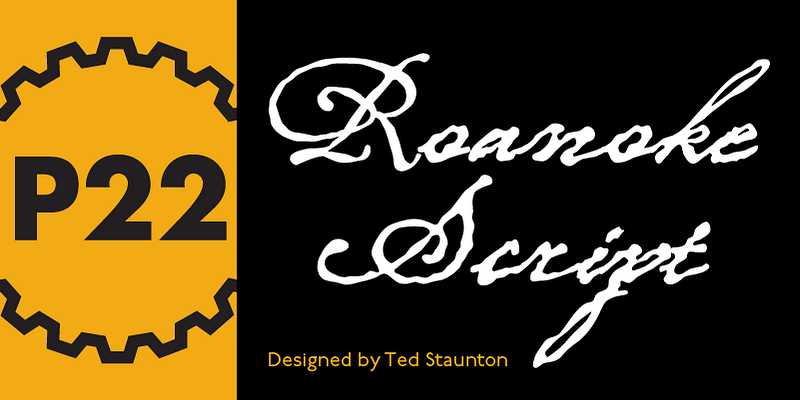
P22 Roanoke Script Font Free Download is a sophisticated and flowing script typeface that exudes elegance and charm. With its smooth curves and beautifully crafted strokes, this font is perfect for projects that need a personal, handwritten touch, such as invitations, branding, logos, and creative designs.
P22 Roanoke Script Font works beautifully for both display text and smaller body text, offering a sense of movement and fluidity while maintaining legibility. It integrates easily with popular design software like Adobe Illustrator, Photoshop, Figma, and Canva, making it ideal for both print and digital media.